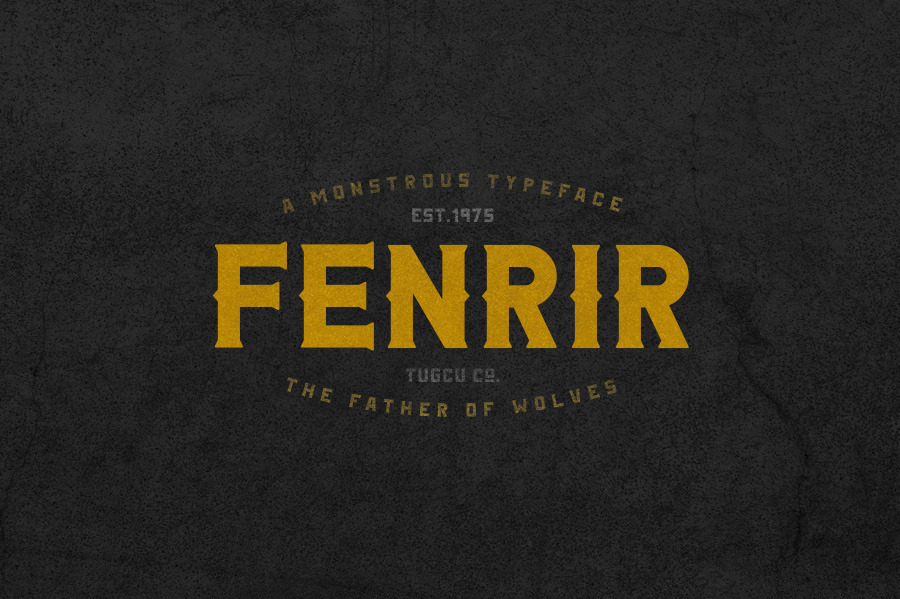
Fenrir Typeface
Fenrir is a big and strong vintage typeface with 6 different style options. It includes English uppercase letters, alternates, numbers and punctuation. Toggle caps lock to use alternate letters.